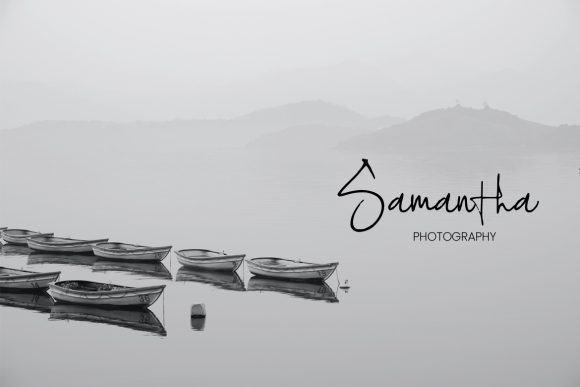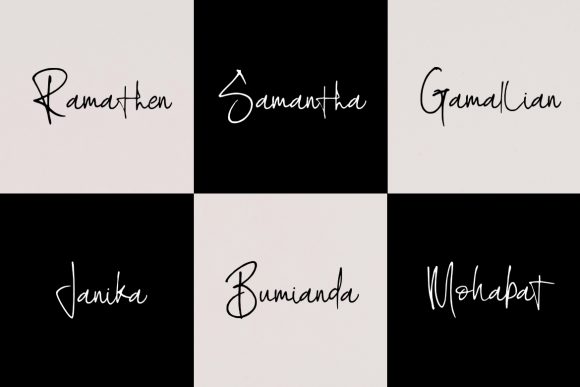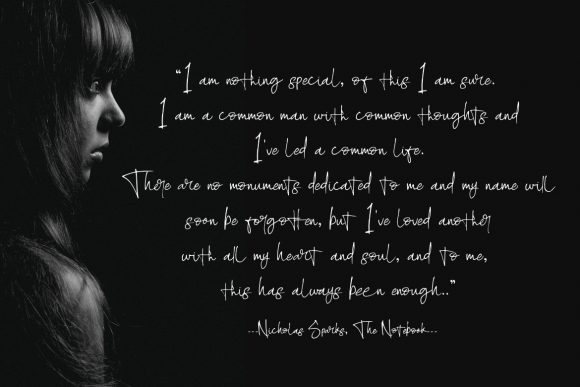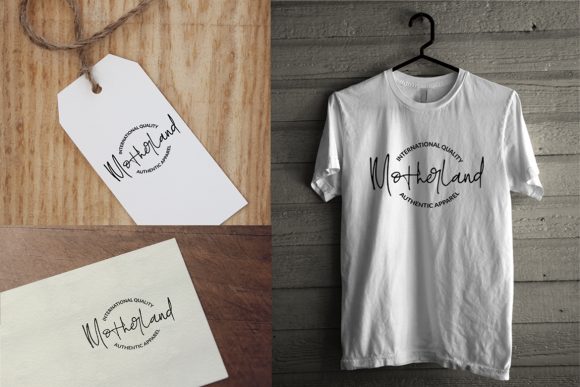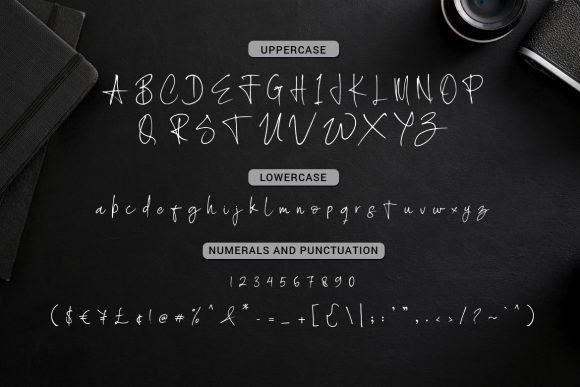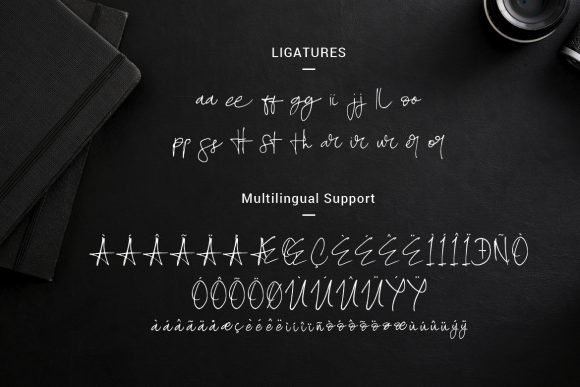
Scratched Font
About Scratched Font
Scratched is a fashionable, light handwritten font with a unique feel and a stunning impact. It will add a luxury spark to any design project that you wish to create!